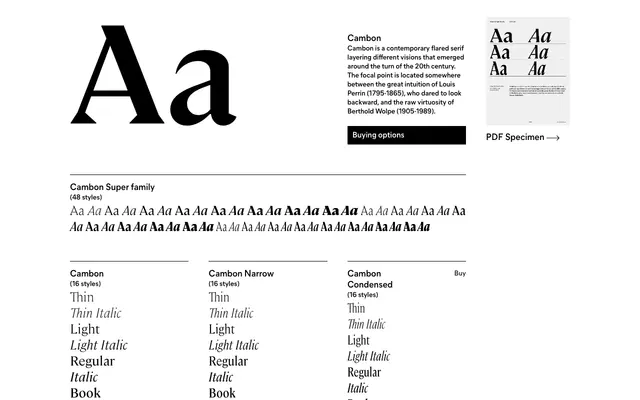
A 48-style flared serif drawing on Louis Perrin's lapidary revivals and Berthold Wolpe's lettering instincts, offered in standard, narrow and condensed widths.
Built across three widths and eight weights each with matching italics, the family totals 48 styles that span delicate text settings at Thin through to commanding display work at Black. The design sits at the intersection of 19th-century French inscriptional letterforms and early 20th-century continental lettering, a lineage that gives it historical grounding without antiquarian stiffness. OpenType features include oldstyle figures, small capitals, tabular figures and discretionary ligatures, with alternates for v, w and z in italic styles.
Cambon is described as a flared serif drawing on the historical sensibilities of Louis Perrin's revivals and Berthold Wolpe's lettering traditions, placing it firmly in the humanist-influenced flared or lapidary serif category rather than a conventional old-style or transitional classification.